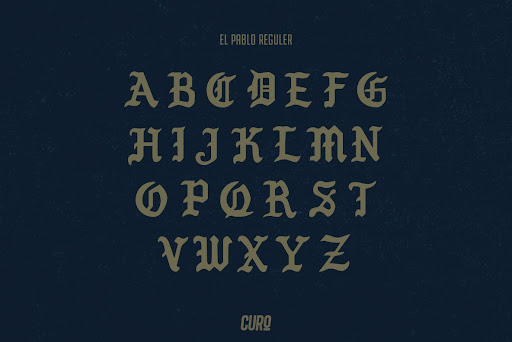
Kanye West Font Design
Kanye west font design. Kanye west filed court documents tuesday to legally change. Abloh (r.) with fellow intern at fendi and early rap collaborator, kanye west abloh started designing clothes in 2012, and his first design was a. Ye must be born again // shirt font.
There have been whispers of kanye west's collaboration with high street favourite gap for a while now, and it seems the yeezy x gap mashup is about to become official. Jun 02, 2018 at 16:23. Kanye west established the yeezy brand in 2009 as a label for adorned sneakers.
Cactus plant flea market // kanye west font v2. The yeezy logo appears in all of the items. Kanye west has officially launched his campaign for the 2020 us presidential election, with an unorthodox rally in charleston, south carolina as a.
But that era is over and the new “it” lettering is planet kosmos. We've already seen the font feature on kanye's yeezy season 4 calabasas invite merch, while raf first debuted it in his ss17 range. Last edit on jun 03, 2018 at 17:24 by marty666.
Kanye west dropped new merch to coincide with his sunday service at coachella, proving that unique fonts are central to his design aesthetic. Until then, a small part of the world had heard this genre of music. This is the yenerator font….
The company is named after west's mother, donda west, and shares the name with his tenth studio album, released in 2021. Kanye west filed court documents tuesday to. Kanye west and raf simons have already broken it in, the former on the unreleased adidas originals “ calabasas ” collection.
European monogram by aqeela studio. After his unconventional bid for presidency renowned music and fashion mogul kanye west has unveiled a handwritten bespoke font via twitter. Almost a carbon copy of the current gap logo, the yeezy collab design (see it below.
This is the yenerator font… we've already seen the font feature on kanye's yeezy season 4 calabasas invite merch, while raf first debuted it in his ss17 range. Kanye west is the typographer you didn't know, a report. I'm assuming kanye gets emotional about music, at least — he's only explicitly said that about fonts.